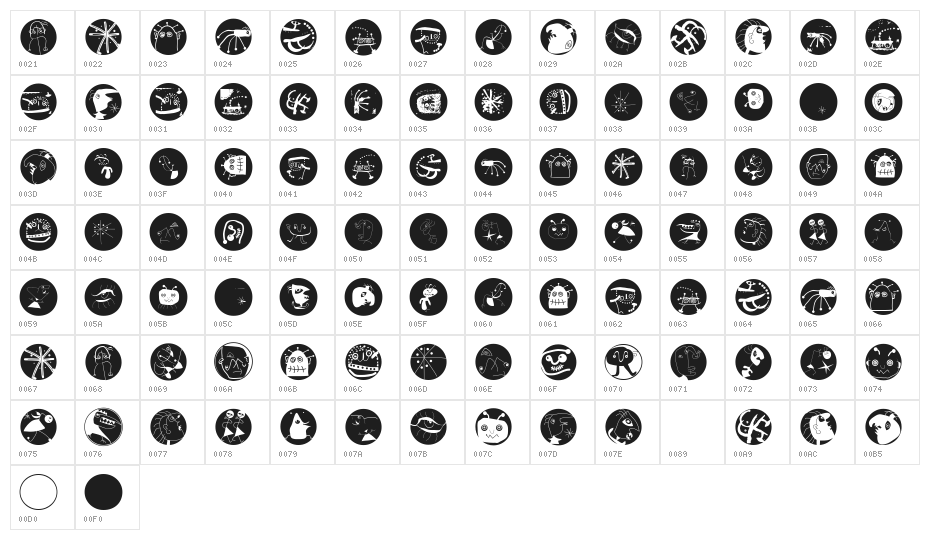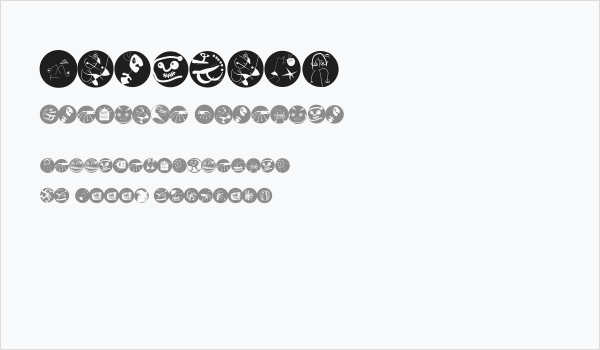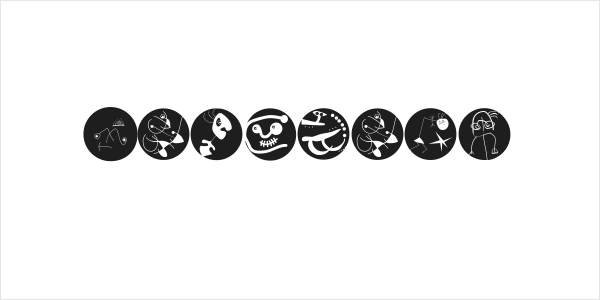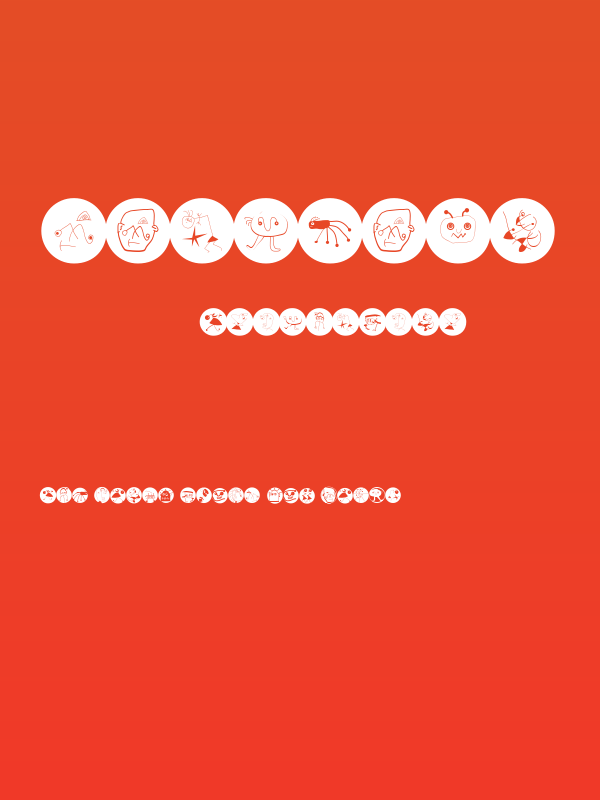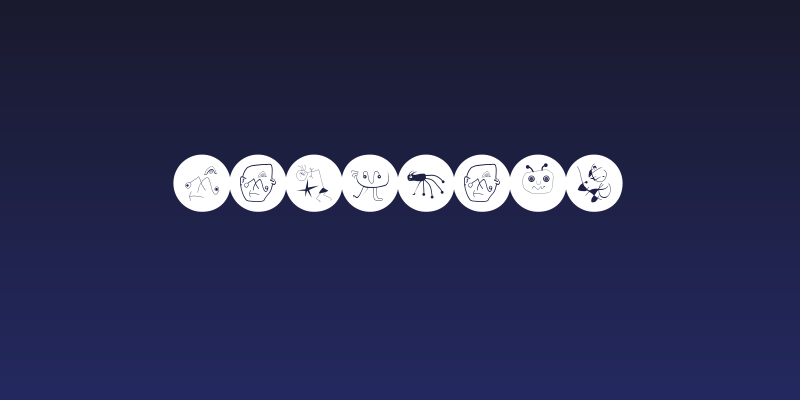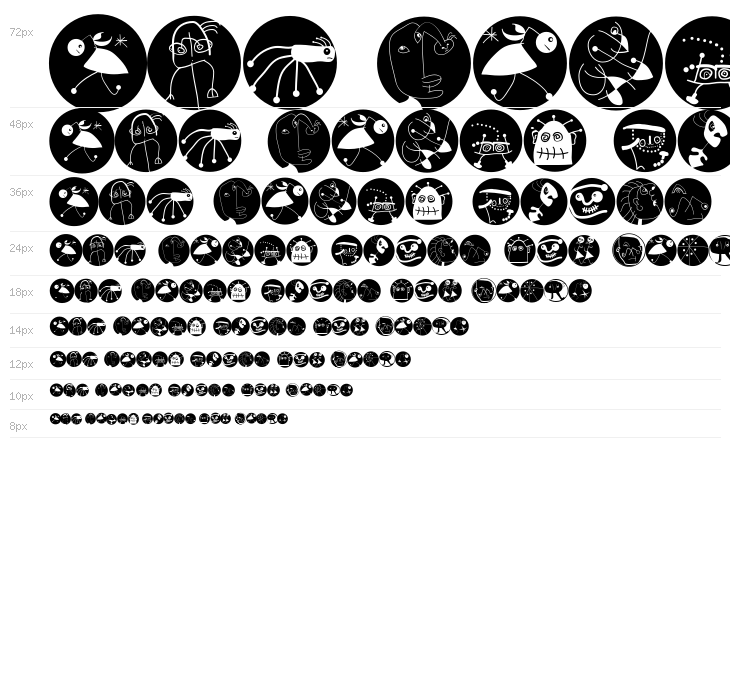
Mirodish Font
Mirodish Description
This collection features a series of whimsical and abstract designs, each enclosed within a circular frame. The characters are highly stylized, with playful and imaginative elements that resemble doodles or artistic sketches. Each symbol is unique, incorporating various shapes, lines, and patterns that give a sense of creativity and spontaneity. The designs are predominantly monochromatic, using high contrast between the black background and the white illustrations. This set is more decorative and artistic rather than functional as a traditional font, making it suitable for creative projects that require a touch of uniqueness and artistic flair.
| Use Case | Artistic projects, decorative elements, creative branding. |
| Proposed Projects | Ideal for creative projects such as art installations, unique branding elements, decorative posters, or any design work that benefits from an artistic and unconventional touch. |